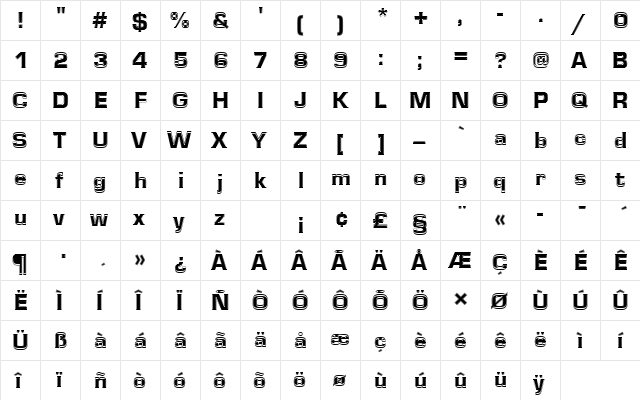
EurostileTHeaIn1 Regular Font Preview
EurostileTHeaIn1 Regular
EurostileTHeaIn1 Regular Font Details
Design Context for EurostileTHeaIn1 Typeface
EurostileTHeaIn1 is a composed and adaptable typeface that performs quietly and consistently across a wide range of design contexts.